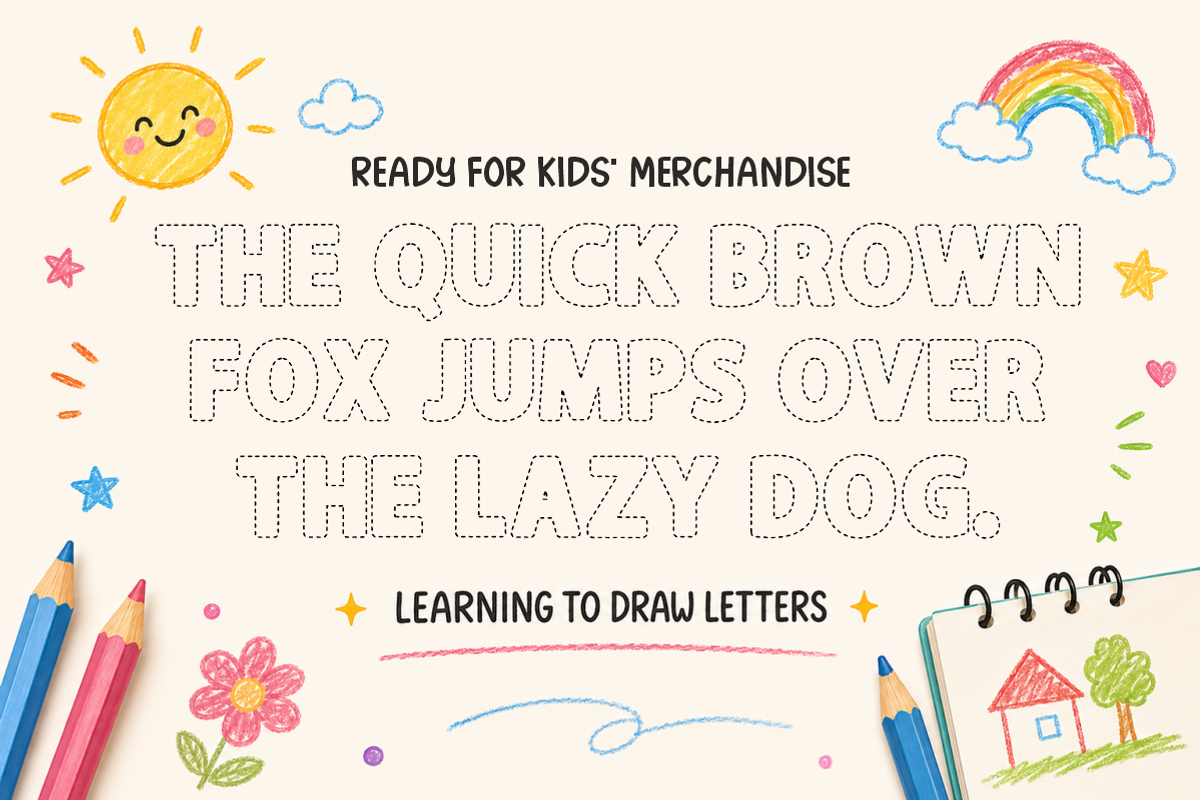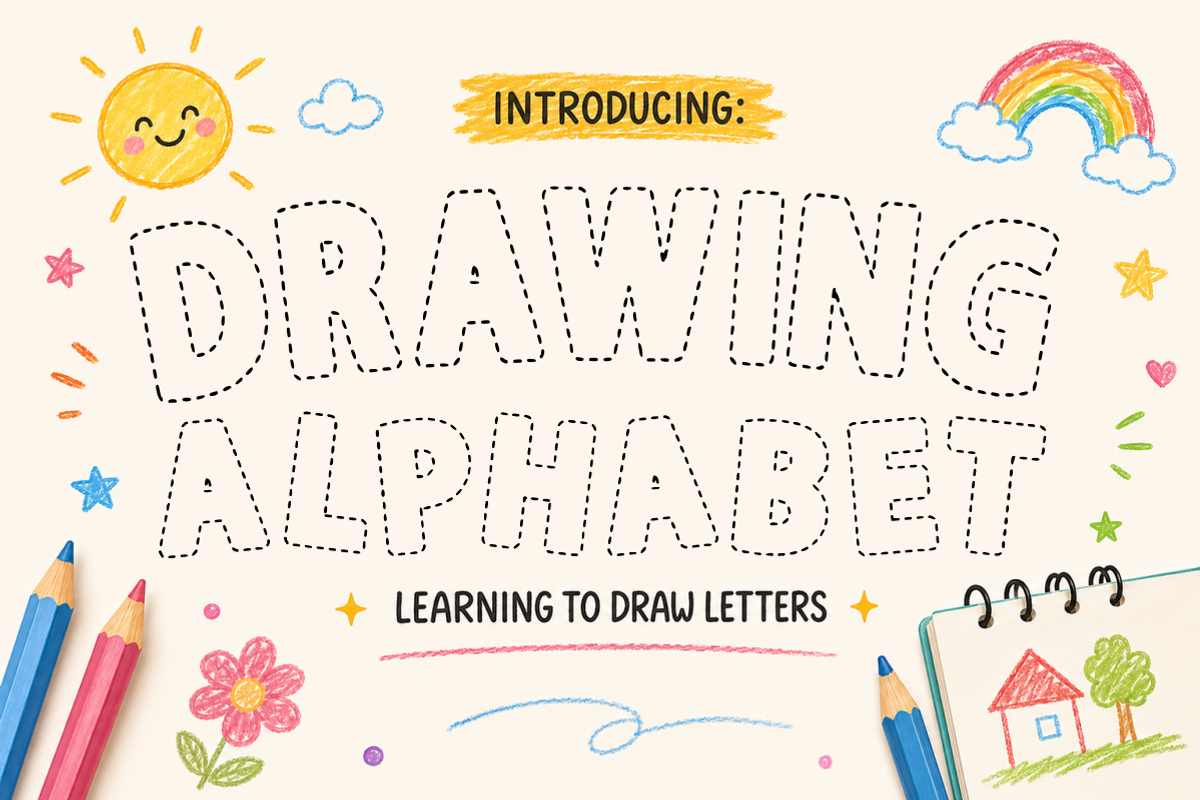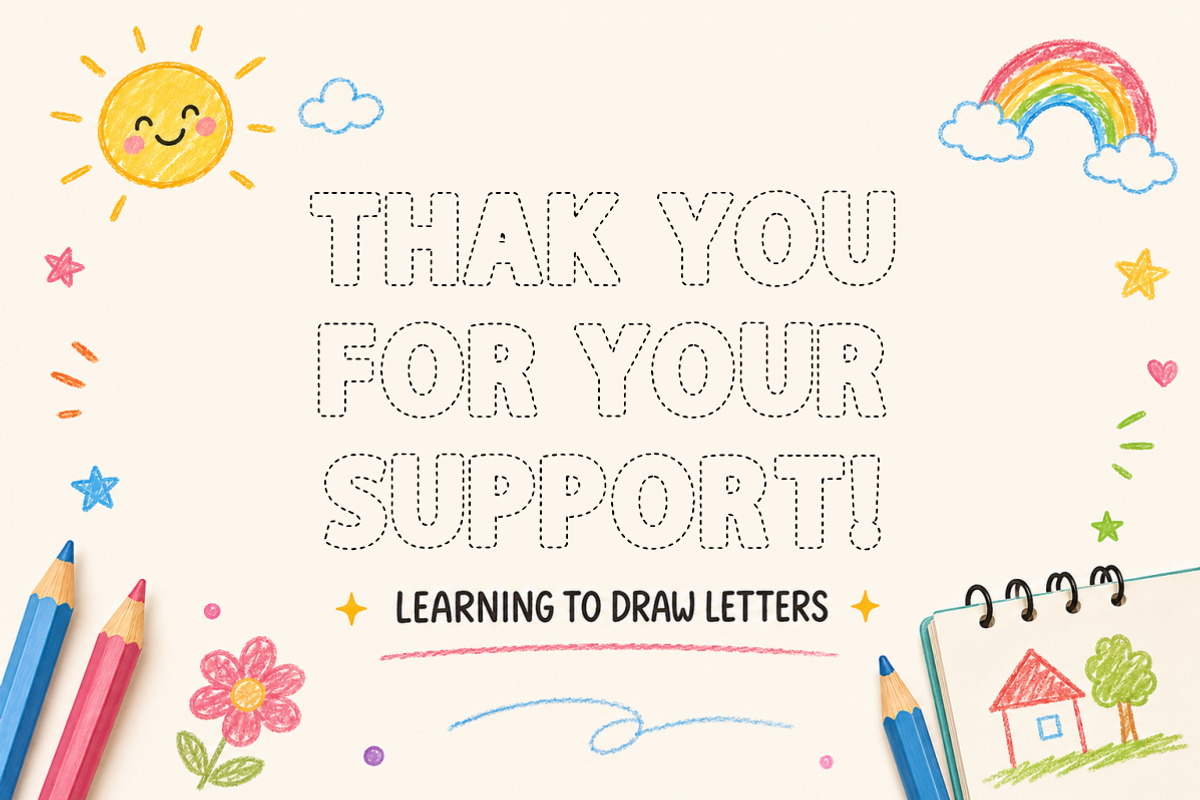
Drawing Alphabet - Dotted Kids Font
Drawing Alphabet - Dotted Tracing Kids Font
Drawing Alphabet is a playful, educational display font featuring clean dashed outline letterforms designed for letter tracing and handwriting practice. Specially crafted for teachers, parents, and educational content creators, this cute font makes learning to write letters fun, interactive, and engaging for preschoolers and young learners. Every character is cleanly vectorized to guarantee high-resolution prints and smooth, effortless cutting on Cricut and Silhouette machines.
Uppercase Character Set
Numbers & Basic Punctuation
Ideal For:
Teachers Pay Teachers (TpT) authors creating alphabet tracing worksheets, handwriting practice sheets, preschool activity books, and early learning flashcards
Educational publishers, kindergarten teachers, and homeschooling parents designing custom learning packs and classroom activity centers
Cricut, Silhouette, and HTV vinyl cutting projects for reusable chalk mats, dry-erase tracing boards, and kids' educational crafts
Etsy sellers designing printable preschool workbooks, learning binder inserts, nursery educational wall art, and quiet book templates
Canva template creators making back-to-school flyers, teacher worksheets, and playful educational graphics
Custom die-cut sticker packs, reward decals, and digital scrapbooking layouts